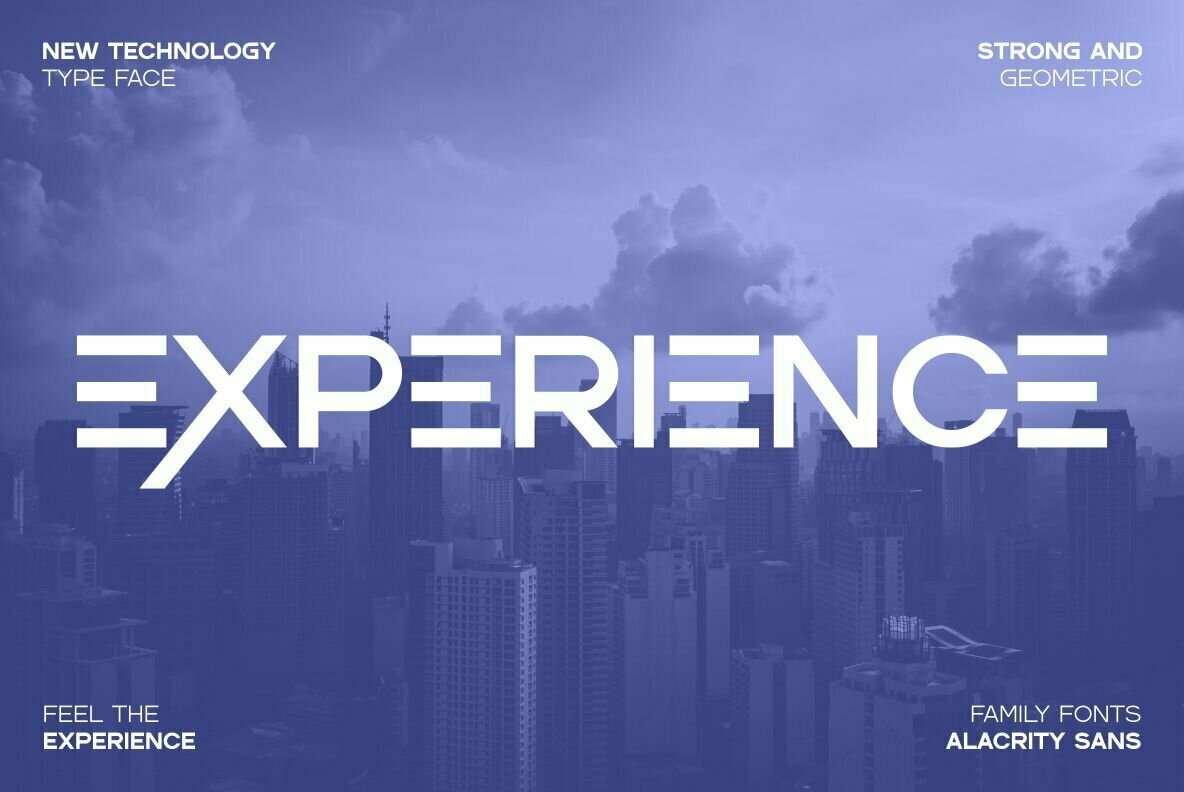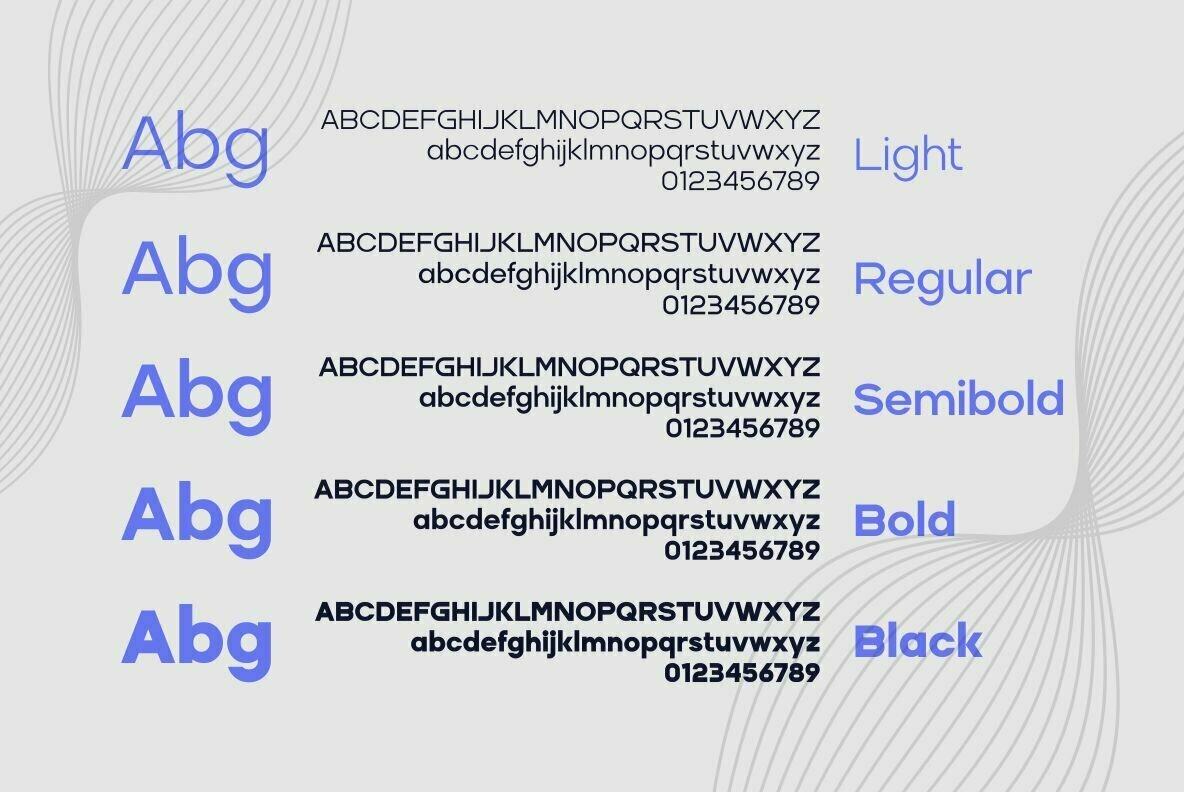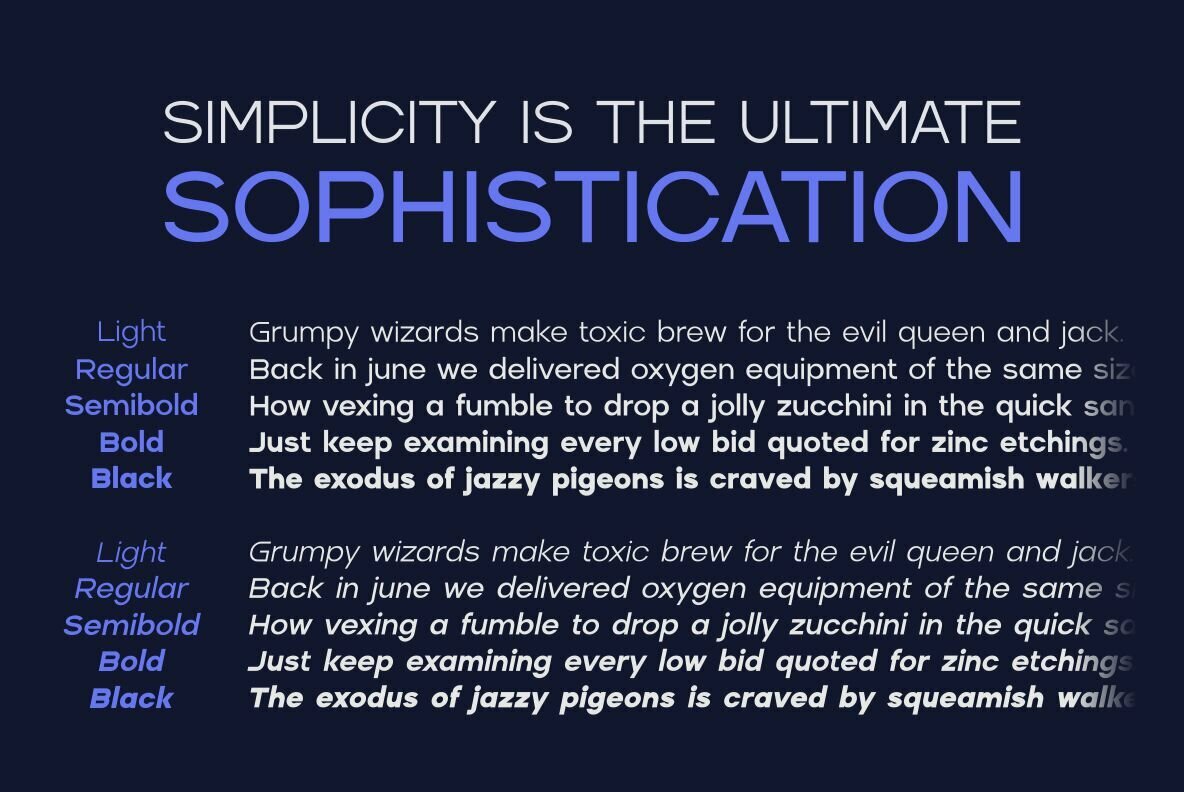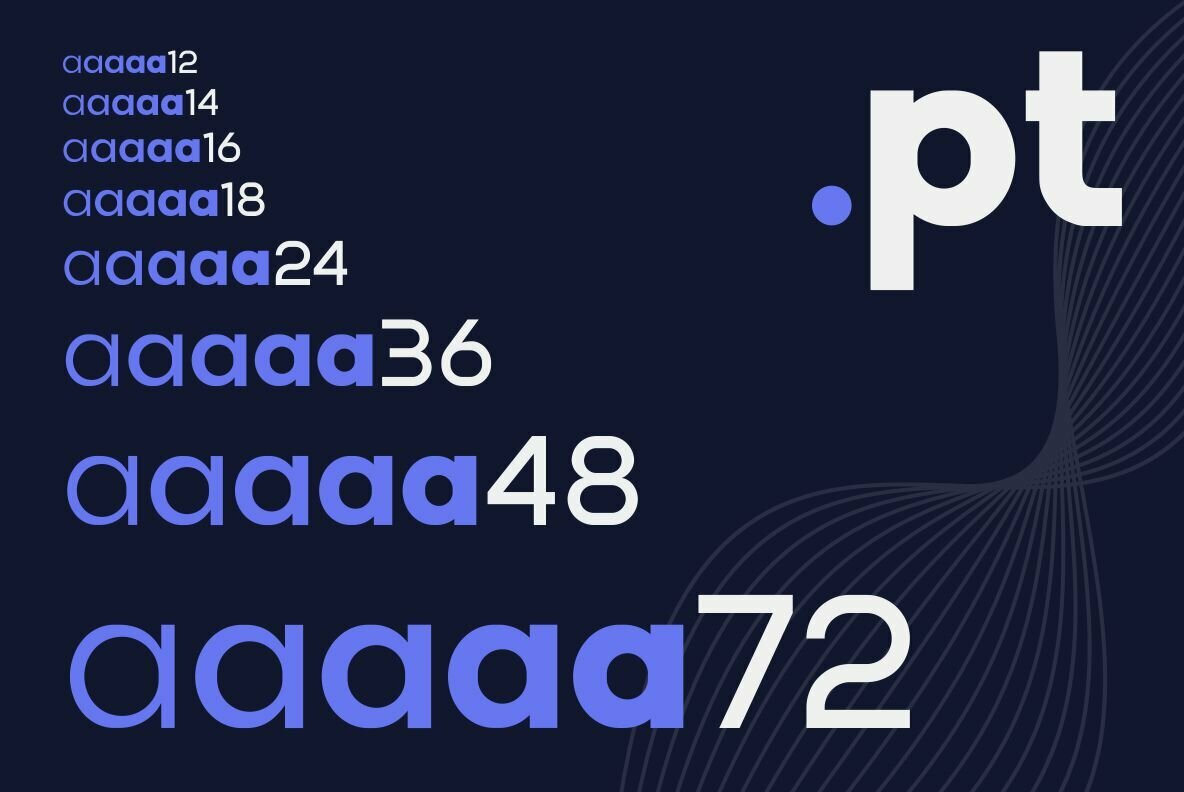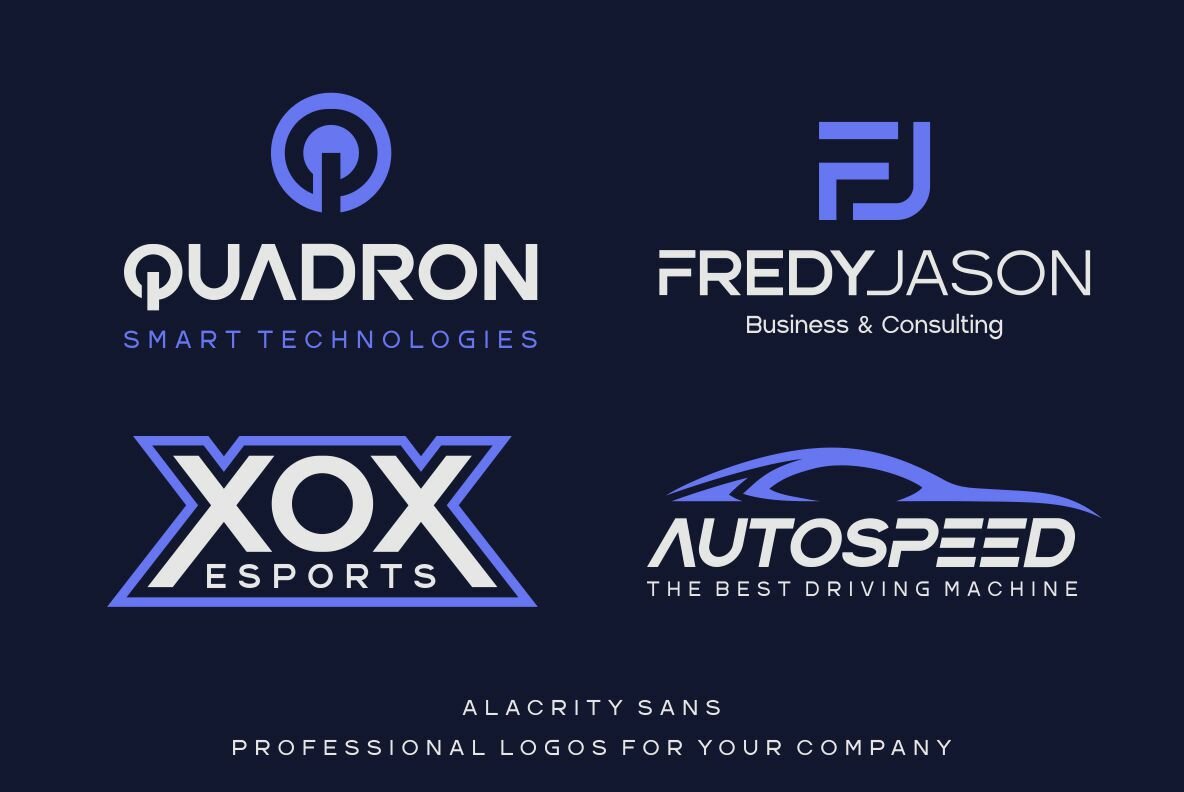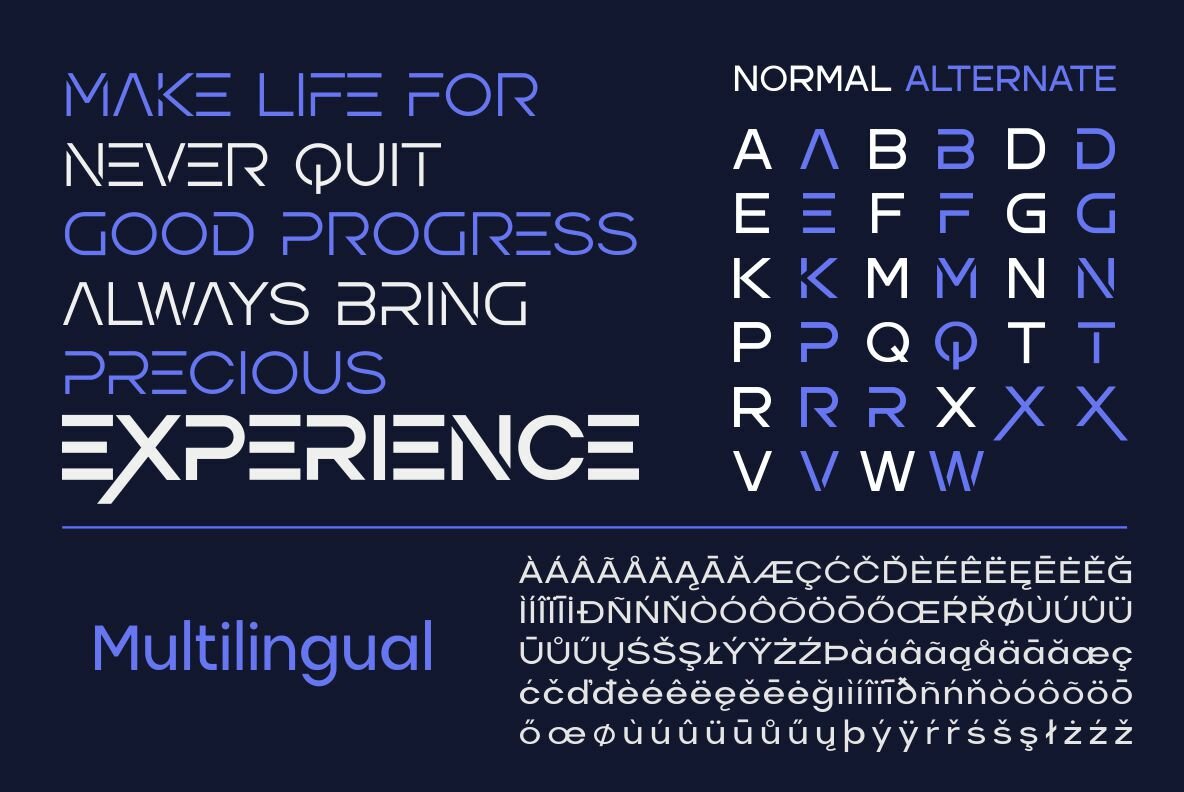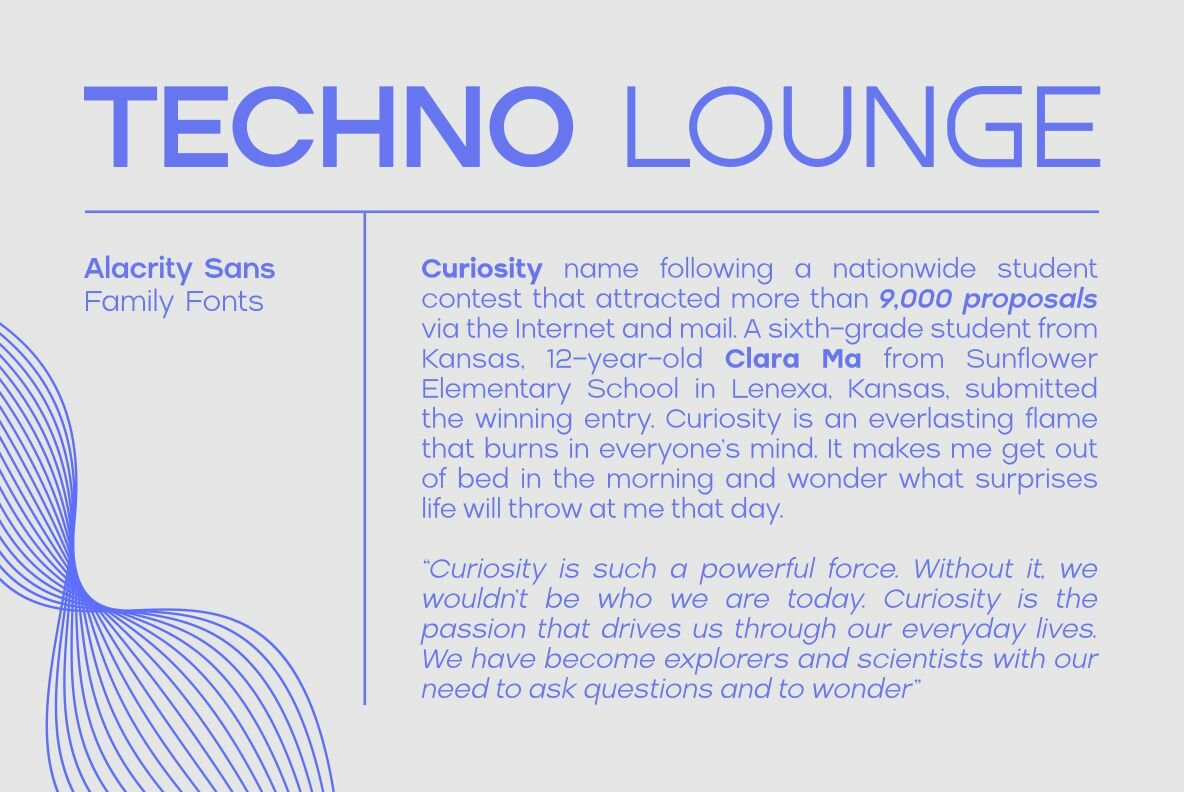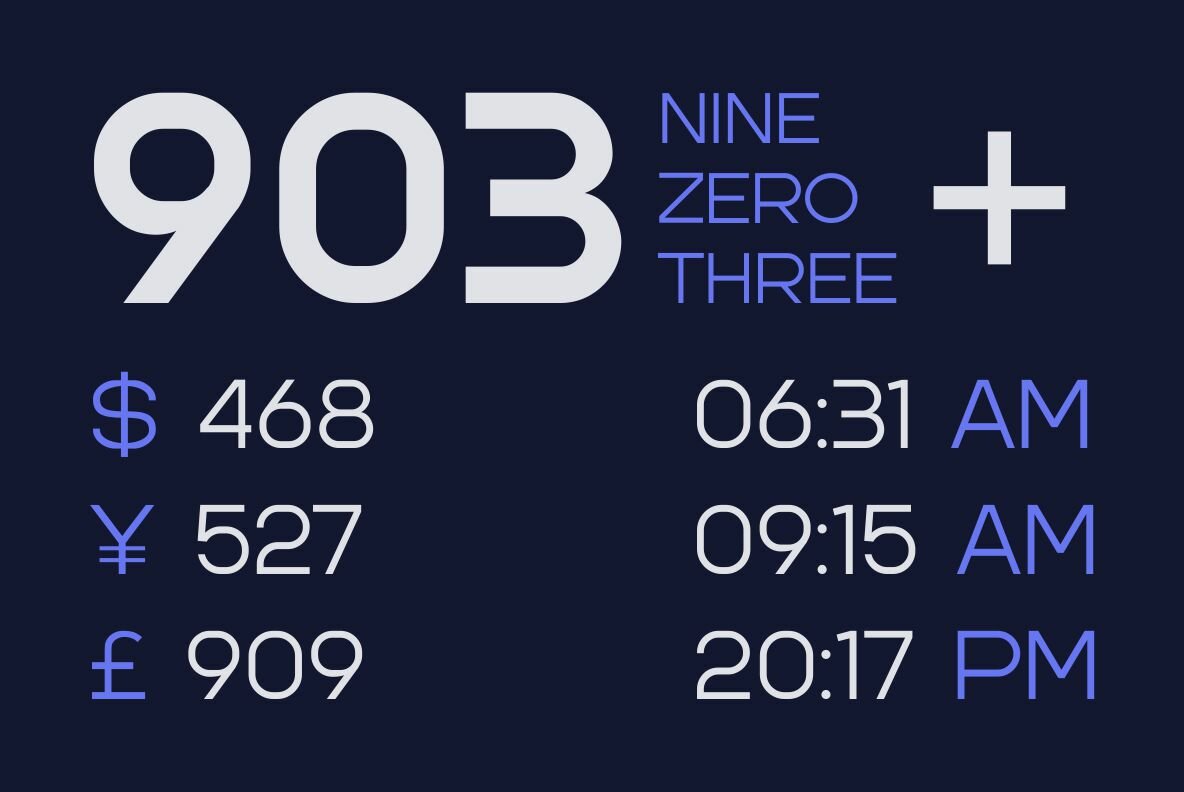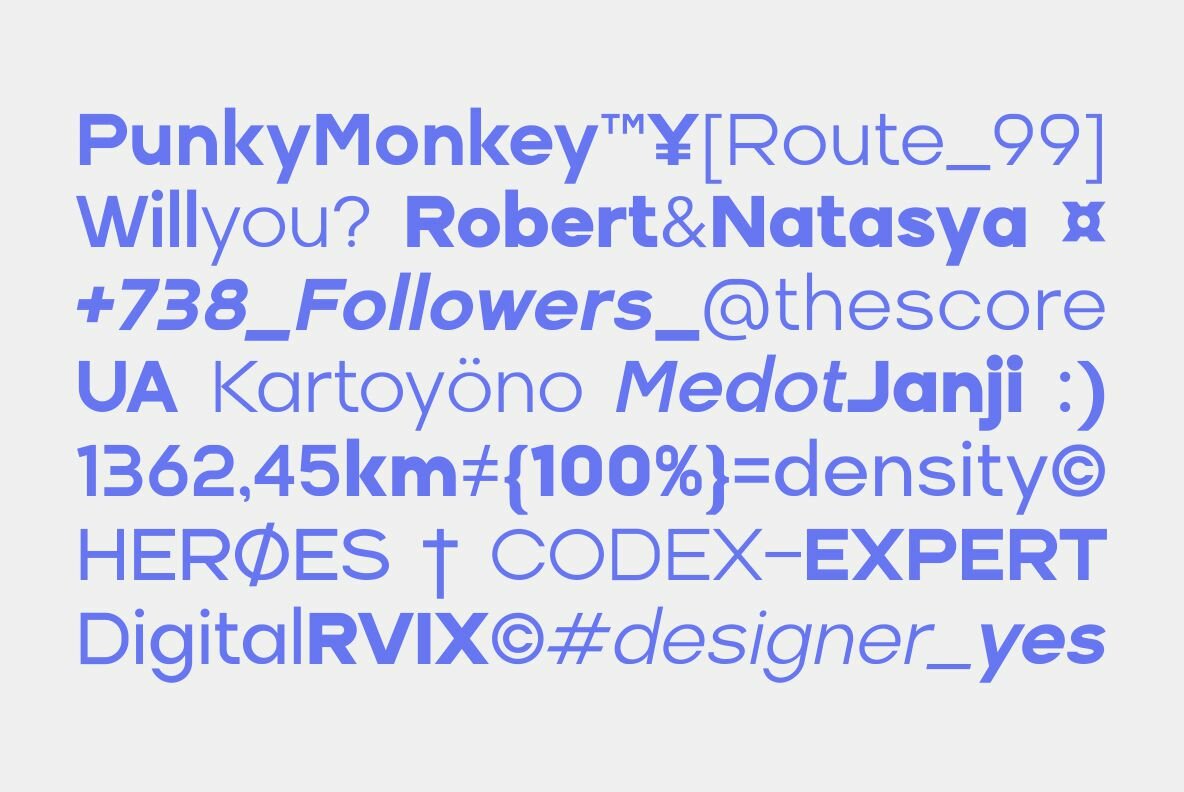
Alacrity Sans Font
Alacrity Sans presents a family of sans serif fonts that excel in capturing sophistication through geometric precision. They seamlessly integrate into modern, clean, and professional designs, making them a superb choice for a wide array of projects. Their versatile nature adapts effortlessly to applications ranging from logo and brand identity to business cards and technology displays.Alacrity Sans: Geometric Sans Serif with Versatile Appeal